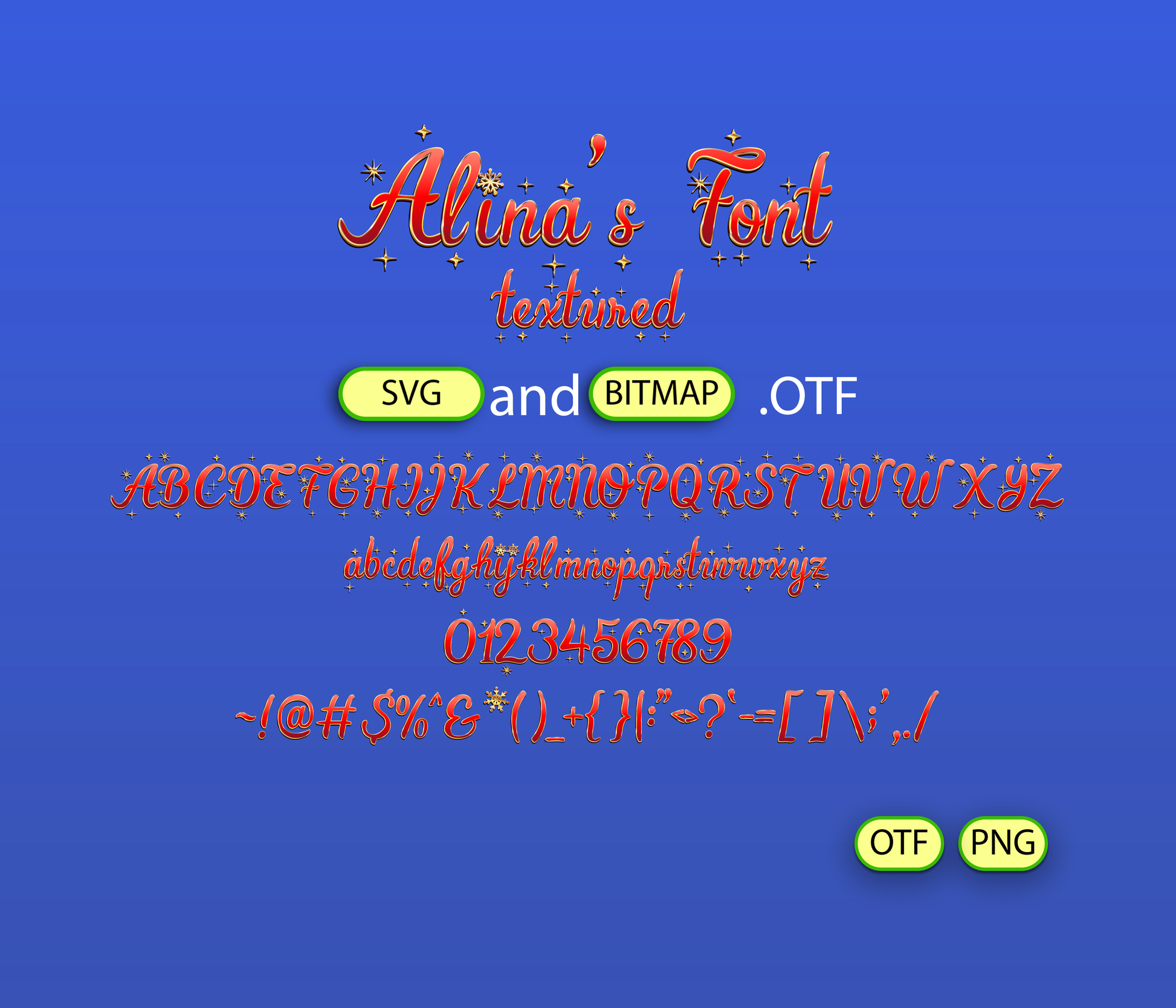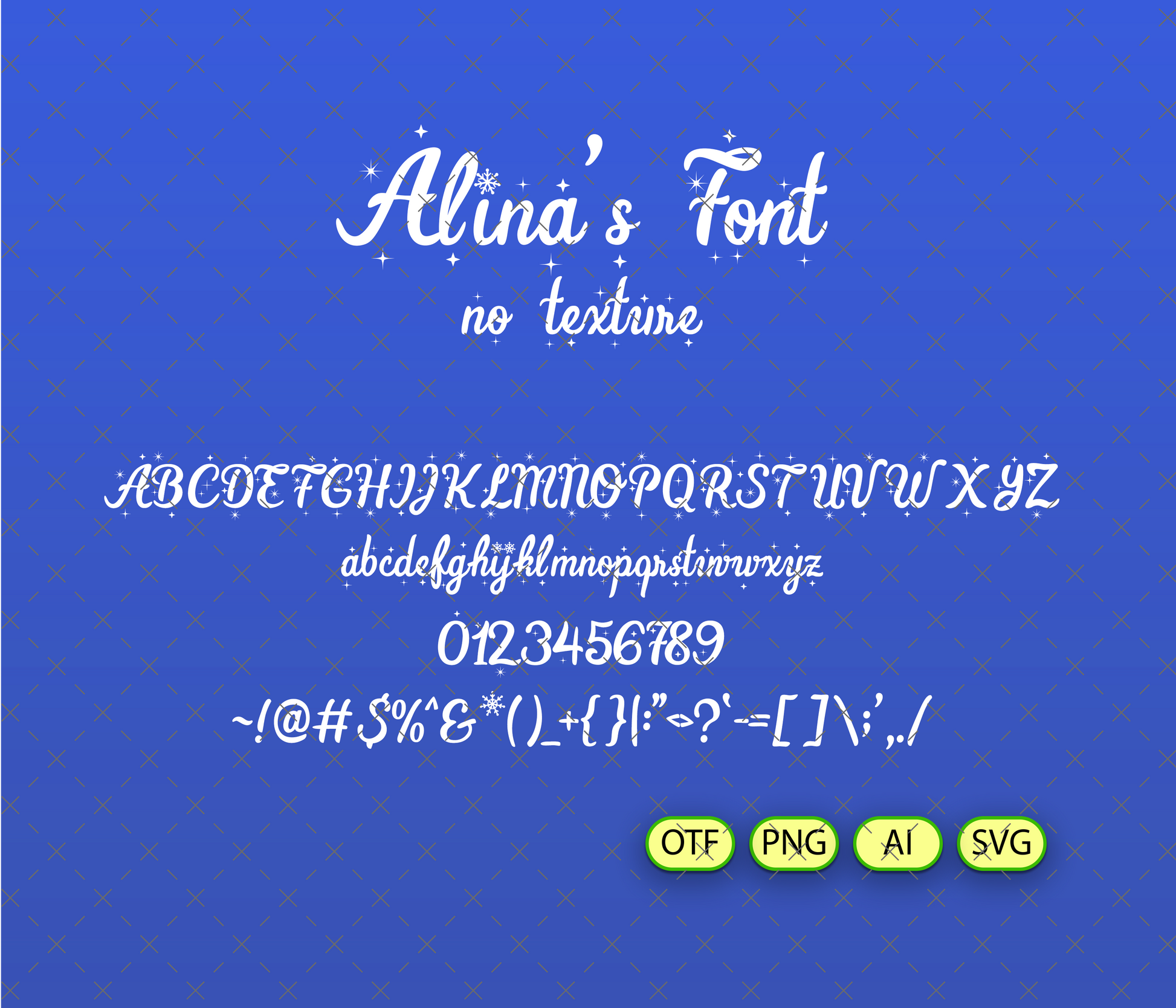
Festive Sparkle Multicolor Font Textured
Festive Sparkle Font Multicolor
Step into the dazzling world of vibrant holiday celebrations with our Festive Sparkle Font Multicolor, capturing the essence of shimmering festive cheer and radiant seasonal traditions. Perfect for holiday crafters, sublimation designers, small business owners, and creative professionals, this font brings the brilliant, eye-catching spirit of multicolor sparkle to your projects. Create heartwarming greeting cards, merchandise, or digital content with the luminous energy of the holiday season.
Festive Multicolor Typography for Holiday Crafts & Seasonal Design
Our Festive Sparkle Font Multicolor features vibrant, shimmering letterforms with holiday-themed glitter textures reflecting the world of dazzling decorations and luminous seasonal joy.
- Event Promotions: Create enchanting invitations, posters, and banners for Christmas parties, holiday markets, and seasonal gatherings that capture the spirit of sparkling festive celebration
- Merchandise Design: Perfect for holiday apparel, ornament tags, gift packaging, and accessories that showcase the radiant aesthetic of multicolor sparkle magic
- Digital Media: Enhance websites, blogs, and social media with dazzling headers and graphics that express the warmth of shimmering holiday traditions
- Craft Content: Add authentic glittering charm to greeting cards, sublimation projects, and creative designs inspired by festive sparkle festivities
- Personal Projects: Bring seasonal joy to scrapbooking, DIY crafts, and home decor inspired by the world of luminous holiday celebrations
Our font pays tribute to the iconic world of dazzling holiday traditions and radiant festive design, empowering your projects with its brilliant and eye-catching spirit. Whether crafting seasonal materials, designing holiday products, or adding a multicolor sparkle touch to personal projects, this font communicates the heartwarming essence of shimmering celebration magic. Ready to inject festive sparkle cheer into your creations? This font is your key to luminous, impactful design.